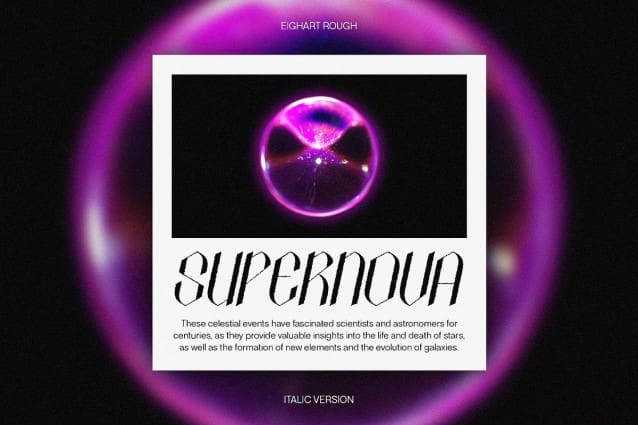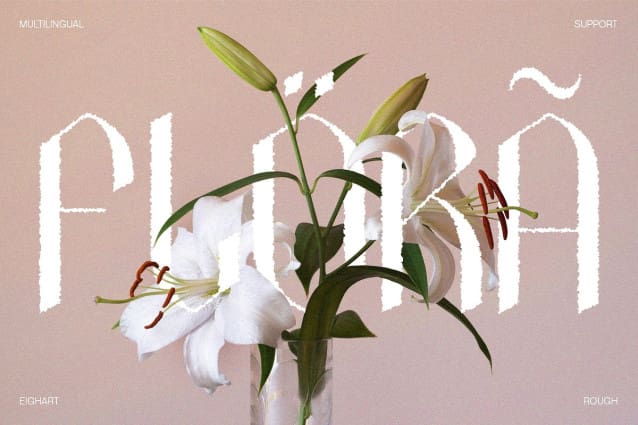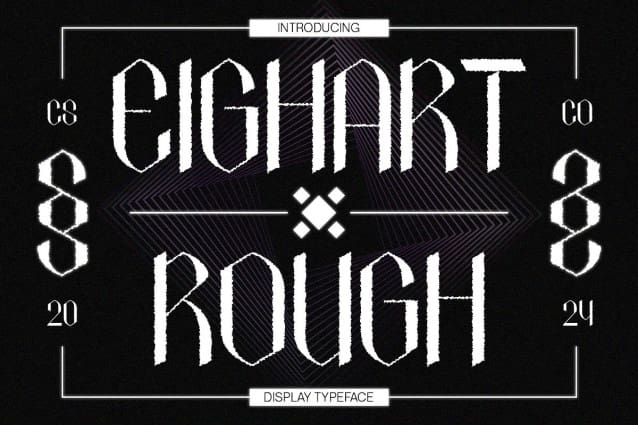
Eighart Rough Font
Eighart Rough Font is a sans serif font that embodies a futuristic shape and rough effect, blending clean, modern lines with a textured finish. This unique design conveys an innovative yet edgy feel, making it perfect for projects aiming to present a futuristic vibe with an intriguing rugged touch.
Perfect for posters, album covers, branding, and any design that requires a blend of modern boldness and daring style, Eighart Rough stands out with its distinctive textured appearance. Its clean lines maintain readability while the rough effect adds depth and character, ensuring a striking visual impact.
Eighart Rough is designed to be versatile and daring, suitable for a wide range of creative applications where a bold and innovative design approach is desired. Whether you’re creating a cutting-edge poster or a bold branding campaign, Eighart Rough delivers a modern, edgy aesthetic that captivates and inspires.